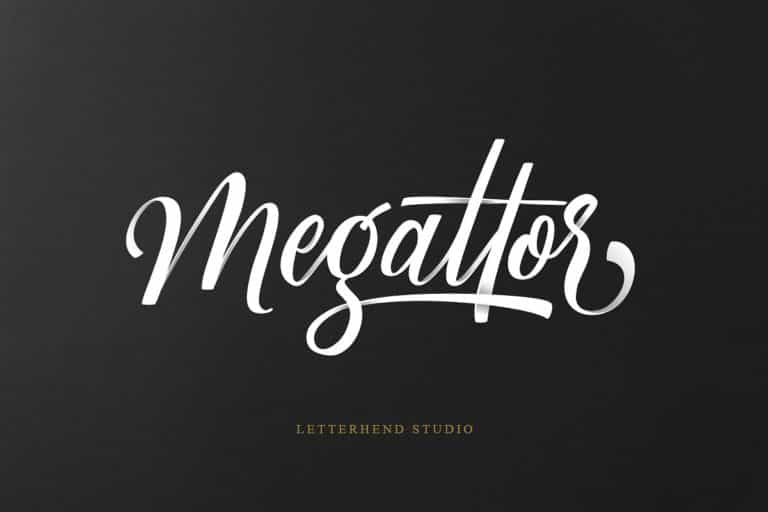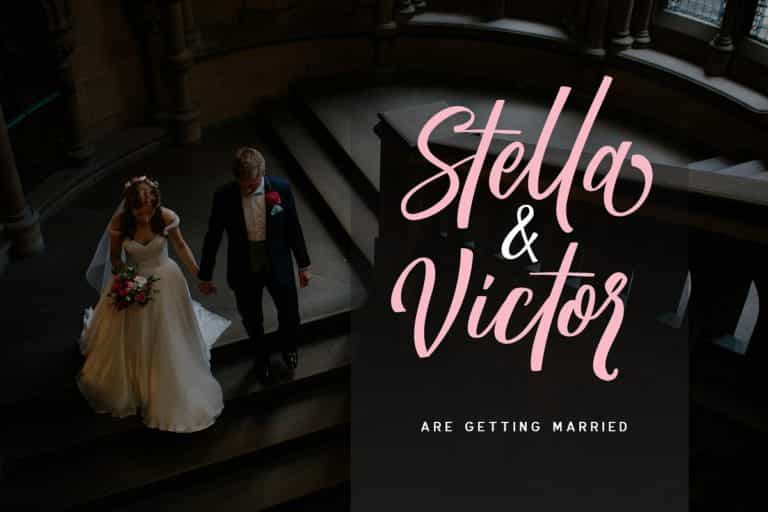
Discover Megattor Script Font, part of the Brush Calligraphy Handwritten collection—a versatile and unique font perfect for adding a personal touch to your projects. Download it for free and enjoy crafting designs with style, from invitations to social media posts. This font is available exclusively for personal use, giving you the freedom to create without limits. Unlock your creativity with Megattor Script Font today!
Ladies and gentlemen, meet Megattor typeface! A fabulous hand writing font from The Brojen Studio with a simple and classy impression. Yes, if you type with Megattor, it was as buying the hand writing commercial License but you can enjoy just by typing! Many features available on Megattor such as : . Sincerely based on manual hand writing are very recommended for any design needs specially script logotype project.